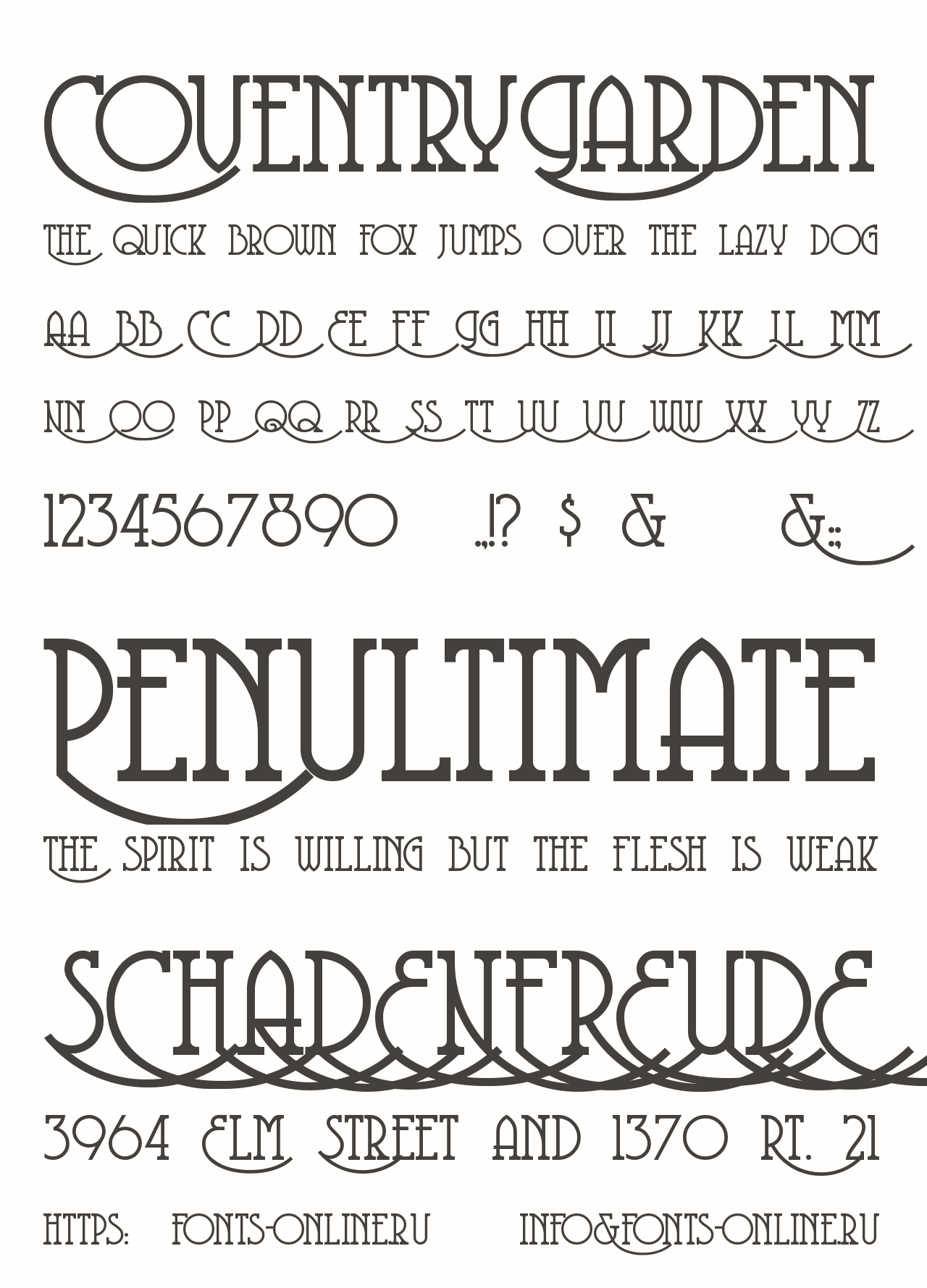
Coventry Garden Font . This elegant typeface is perfectly suitable. Download and install the coventry garden font by nicks fonts. In this font specimen you. Coventry garden is licensed under the 1001fonts free for commercial use license (ffc) This slab serif font is created by freebies. Free download of coventry garden font family with 2 styles. The uppercase letters catch your attention with their beautiful long swash tails. Coventry garden à € by nick's fonts. Size coventry garden à € by nick's fonts. Coventry garden is a stylish and graceful slab serif font. Below you will find the font specimen for the coventry garden font. The coventry garden font has been downloaded 19,942 times.
Coventry garden is licensed under the 1001fonts free for commercial use license (ffc) The coventry garden font has been downloaded 19,942 times. Coventry garden is a stylish and graceful slab serif font. This slab serif font is created by freebies. The uppercase letters catch your attention with their beautiful long swash tails. In this font specimen you. Free download of coventry garden font family with 2 styles. Coventry garden à € by nick's fonts. This elegant typeface is perfectly suitable. Size coventry garden à € by nick's fonts.
Coventry Garden Font In this font specimen you. Size coventry garden à € by nick's fonts. Coventry garden à € by nick's fonts. The coventry garden font has been downloaded 19,942 times. The uppercase letters catch your attention with their beautiful long swash tails. This slab serif font is created by freebies. Below you will find the font specimen for the coventry garden font. In this font specimen you. Coventry garden is a stylish and graceful slab serif font. This elegant typeface is perfectly suitable. Coventry garden is licensed under the 1001fonts free for commercial use license (ffc) Download and install the coventry garden font by nicks fonts. Free download of coventry garden font family with 2 styles.
Coventry Garden NF free font Coventry Garden Font The uppercase letters catch your attention with their beautiful long swash tails. Free download of coventry garden font family with 2 styles. Coventry garden à € by nick's fonts. The coventry garden font has been downloaded 19,942 times. Below you will find the font specimen for the coventry garden font. Size coventry garden à € by nick's fonts. This elegant. Coventry Garden Font.
Identifont Coventry Garden NF Coventry Garden Font This slab serif font is created by freebies. Below you will find the font specimen for the coventry garden font. The uppercase letters catch your attention with their beautiful long swash tails. The coventry garden font has been downloaded 19,942 times. Coventry garden is licensed under the 1001fonts free for commercial use license (ffc) Free download of coventry garden font. Coventry Garden Font.
Coventry Garden Regular Download for free at Free Fonts Coventry Garden Font Size coventry garden à € by nick's fonts. This elegant typeface is perfectly suitable. Coventry garden is licensed under the 1001fonts free for commercial use license (ffc) Coventry garden à € by nick's fonts. Download and install the coventry garden font by nicks fonts. This slab serif font is created by freebies. Free download of coventry garden font family with. Coventry Garden Font.
Custom Words in Coventry Garden Font, 8 Letters choice of size Coventry Garden Font Size coventry garden à € by nick's fonts. Free download of coventry garden font family with 2 styles. The coventry garden font has been downloaded 19,942 times. This elegant typeface is perfectly suitable. Coventry garden à € by nick's fonts. The uppercase letters catch your attention with their beautiful long swash tails. Coventry garden is a stylish and graceful slab. Coventry Garden Font.
Coventry Garden font by Nick's Fonts FontRiver Coventry Garden Font Below you will find the font specimen for the coventry garden font. Download and install the coventry garden font by nicks fonts. Free download of coventry garden font family with 2 styles. This elegant typeface is perfectly suitable. This slab serif font is created by freebies. The uppercase letters catch your attention with their beautiful long swash tails. The coventry. Coventry Garden Font.
Free font "Coventry Garden" by Nick's Fonts Coventry Garden Font Coventry garden à € by nick's fonts. Size coventry garden à € by nick's fonts. Download and install the coventry garden font by nicks fonts. The coventry garden font has been downloaded 19,942 times. This elegant typeface is perfectly suitable. Below you will find the font specimen for the coventry garden font. Coventry garden is licensed under the 1001fonts free. Coventry Garden Font.
Download Coventry Garden Font Free Font Download Coventry Garden Font In this font specimen you. This slab serif font is created by freebies. Download and install the coventry garden font by nicks fonts. Below you will find the font specimen for the coventry garden font. Coventry garden is a stylish and graceful slab serif font. Size coventry garden à € by nick's fonts. Free download of coventry garden font family. Coventry Garden Font.
CoventryGarden font Coventry Garden Font In this font specimen you. Download and install the coventry garden font by nicks fonts. Coventry garden à € by nick's fonts. The coventry garden font has been downloaded 19,942 times. Coventry garden is a stylish and graceful slab serif font. Size coventry garden à € by nick's fonts. This slab serif font is created by freebies. This elegant typeface. Coventry Garden Font.
Coventry Garden Font · 1001 Fonts Coventry Garden Font Below you will find the font specimen for the coventry garden font. This slab serif font is created by freebies. The coventry garden font has been downloaded 19,942 times. The uppercase letters catch your attention with their beautiful long swash tails. In this font specimen you. Coventry garden is a stylish and graceful slab serif font. Coventry garden is licensed. Coventry Garden Font.